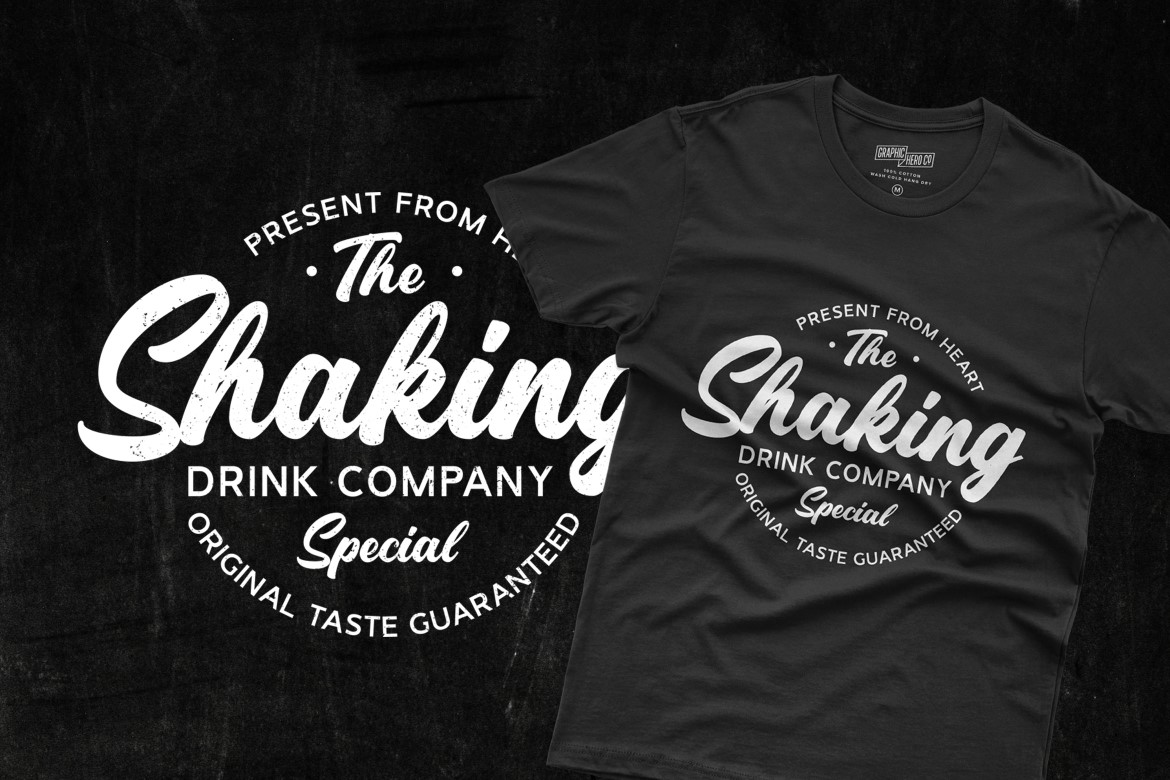
Introducing Lettersiro Font Duo
Elevate your designs with the perfect blend of elegance and modernity with the Lettersiro Font Duo. This versatile font duo combines two distinct styles: a graceful script and a clean sans-serif, offering you endless creative possibilities.
Features:
- Script Style:
- The script font of Lettersiro brings a touch of elegance and sophistication to your text. Its fluid and smooth strokes make it perfect for logos, signatures, wedding invitations, and more.
- Sans Style:
- The sans-serif font complements the script beautifully with its clean and modern lines. Ideal for headlines, branding, posters, and web designs, it ensures readability while maintaining a sleek and professional appearance.
Perfect Combination:
- The true strength of Lettersiro lies in its harmonious combination. Use the script font for a creative and personal touch and the sans font for clarity and simplicity. Together, they create a perfect balance, making your designs stand out.
Versatility:
- Whether you're designing for print or digital media, Lettersiro is adaptable to various design needs. Its dual styles allow for a cohesive look across different types of projects, from formal invitations to contemporary advertisements.
Get Creative:
- Mix and match the styles to create unique typographic designs. Let Lettersiro inspire your next project with its dynamic and complementary font duo.
Experience the perfect combination of script elegance and sans-serif modernity with Lettersiro Font Duo. Enhance your design projects and captivate your audience with this versatile and stylish font pair.